Free pixel fonts are an excellent choice for designers looking to incorporate a unique retro aesthetic into their projects. These nostalgic typefaces evoke memories of classic video games and pixelated graphics, making them perfect for anyone aiming to create a vintage vibe. With hundreds of options available for download, you can explore the best free pixel fonts that suit your creative needs, from playful styles to bold statement pieces. Not only do these pixel font styles add character to digital artwork and branding, but they also work beautifully as headline fonts on gaming blogs and applications. Whether you’re designing a retro-themed poster or enhancing graphics for an app, free pixel fonts provide the versatility you need to make your designs stand out.
When it comes to typography with a nostalgic flair, pixelated typefaces stand out as a distinctive choice for contemporary designers. These fonts, often associated with video gaming and retro computer art, offer a stylish nod to the past while remaining relevant in today’s applications. Those interested in digital design can easily find a variety of free pixel fonts that combine old-school charm with modern functionality, making them ideal for use in graphics and online platforms. Moreover, the wide range of pixel font styles available, from the blocky to the more streamlined versions, ensures that every project can benefit from this unique typographic category. Embracing pixel fonts in your design toolkit allows for creative expression that blends historical significance with current trends.
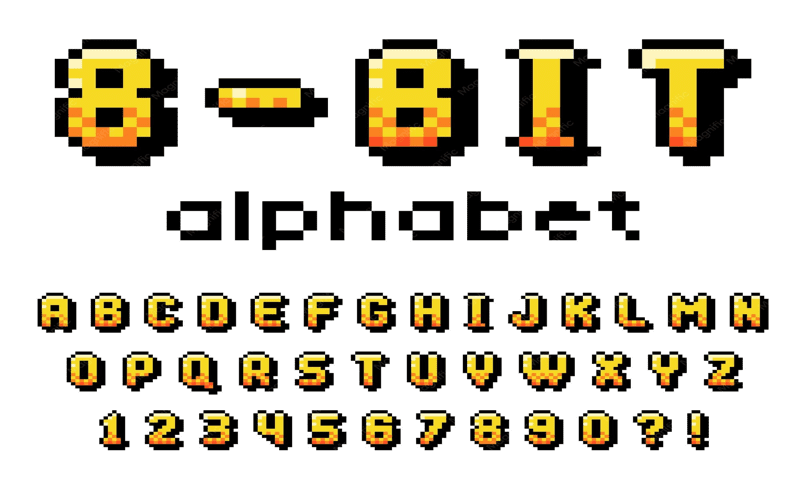
Introduction to Pixel Fonts
Pixel fonts have become a significant element in design, especially for those infused with nostalgia. These fonts transport users back to earlier days filled with gaming and retro tech culture. They embody characteristics that remind one of the 8-bit era, where creativity thrived despite limitations in design.
The versatility of pixel fonts extends beyond mere decoration; they can effectively sharpen the visual impact of various mediums. Their use is prevalent in app development, digital art, and even print materials, showcasing their adaptability in modern design contexts. For creatives who revel in retro aesthetics, these fonts are an essential tool.
Exploring Free Pixel Font Styles
Diving into the world of free pixel fonts reveals a diverse range of styles, from bold, impactful designs to more understated, readable options. Each font carries its unique flair, whether it’s through thickness, character spacing, or creative flair. For instance, playful fonts reminiscent of classic arcade games feature noticeable squares and rectangles that evoke a warm sense of nostalgia.
In contrast, there are pixel fonts that strike a fine balance between retro and modern. These typefaces tend to have sharper edges and refined outlines, catering to users seeking a neater aesthetic. Whether you gravitate towards chunky characters or sleek designs, the vast array of free pixel fonts will meet all your creative needs.
Practical Uses for Pixel Fonts
When planning a design project, incorporating pixel fonts can elevate the visual story you wish to tell. For gaming blogs, they serve not only as headline fonts but also as thematic elements that resonate with readers. Similarly, in app development, such fonts can provide an authentic gaming experience through their distinctive styles.
Moreover, pixel fonts can enhance printed materials by imparting a playful quality that grabs attention. Their unique characteristics make them suitable for a range of applications, from marketing materials to digital artwork. Creatives should experiment with different combinations to discover ways pixel fonts can redefine their design approach.
The Future of Pixel Fonts
As technology evolves, pixel fonts continue to thrive by adapting to new mediums and design preferences. With the resurgence of retro styles in contemporary design, these fonts can serve as a bridge between past and present. They evoke familiarity, drawing in audiences while allowing designers to create visually striking layouts.
Moving forward, designers can expect even more innovative variations of pixel fonts as they blend traditional styles with modern design principles. As tools become more sophisticated, the possibilities for using pixel fonts will only expand, ensuring they remain relevant in the ever-changing landscape of graphic design.
In conclusion, pixel fonts serve as a vibrant link to our nostalgic past while offering a fresh and versatile tool for contemporary design. Their unique characteristics enable creatives to add playful and retro elements to their projects, capturing attention and sparking interest. When considering the implementation of pixel fonts in your designs, keep these key points in mind:
- Pixel fonts can evoke a sense of nostalgia, reminiscent of classic video games and retro styles.
- They are incredibly versatile, with applications ranging from app development to digital artwork and print materials.
- Opt for various styles, including serif and sans-serif, to match the tone and personality of your projects.
- Ensure readability by selecting font weights and styles suitable for your medium, whether it’s for headlines or smaller text.
These considerations will help you effectively incorporate pixel fonts while enhancing your designs with a charming retro flair.
Ultimately, the array of free pixel fonts available opens up a world of creative possibilities for designers and typographers alike. They are not just nostalgic relics but dynamic assets that can enrich various projects throughout the digital and print landscapes. To effectively utilize these fonts in your work, focus on the following:
- Explore different pixel font styles to find the perfect fit for your theme and audience.
- Experiment with weights and spacing to create unique visual hierarchies within your projects.
- Leverage their playful aesthetic to inject fun and personality into both commercial and personal designs.
- Engage with the open-source community to discover even more pixel fonts and fonts useful for your specific needs.
By embracing these practices, you can elevate your work with captivating pixel fonts that blend nostalgia with modern design sensibility.